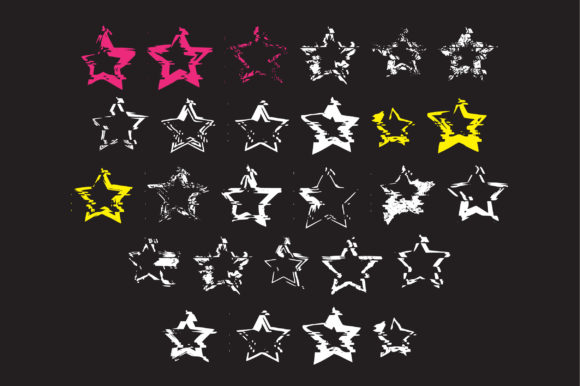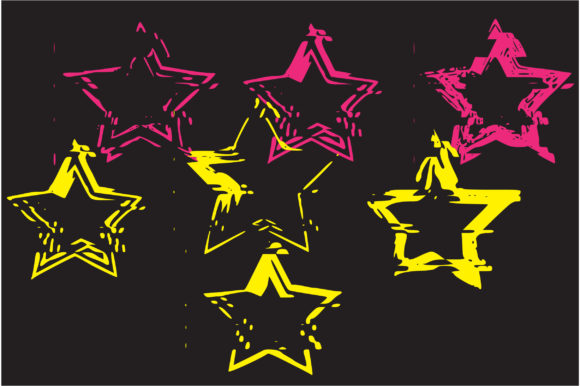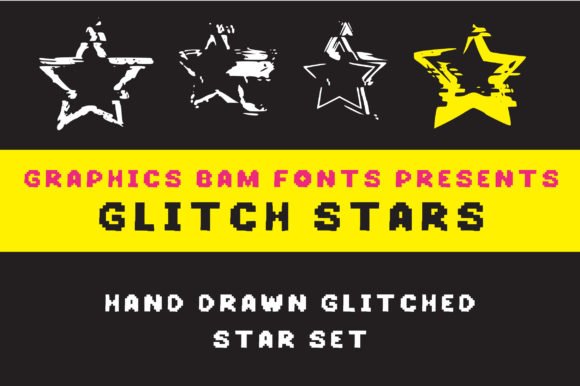
Introduction to Glitch Stars Font
Glitch Stars is a cool, uniquely shaped, pixelated dingbats font.
Add a distorted and trendy touch to your designs with this unusual font .
Glitch Stars Font offers exceptional quality and versatility, making it a valuable addition to your design toolkit. Whether you’re creating for personal projects or commercial use, Glitch Stars Font delivers professional results.